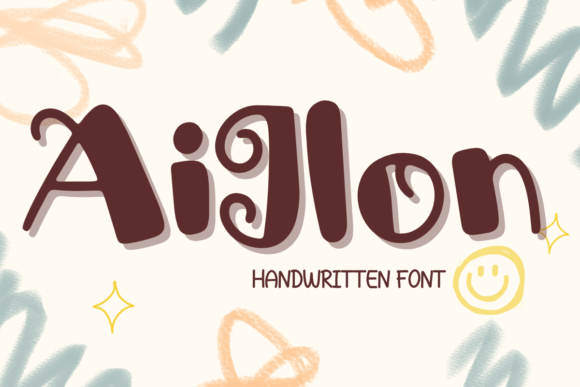
Introducing Aiglon Font, the Enchanting Handwritten Display Font!
Embark on a captivating journey into the realm of typography with Aiglon Font, the ultimate display font that breathes life into your creative endeavors. This captivating font is a masterpiece crafted by the talented Sirinart, designed to ignite your imagination and elevate your designs to new heights. Let Aiglon's charming handwritten style add a touch of whimsy and elegance to your projects, effortlessly capturing the hearts of your audience.
Unleash your creativity and explore the boundless possibilities of Aiglon Font. With its versatile nature, this font effortlessly adapts to a myriad of design projects, from the intimate charm of personal diaries to the vibrant energy of social media posts. Its graceful strokes and playful curves lend a unique character to your content, whether you're crafting eye-catching banners, designing stylish mugs, or creating heartfelt greeting cards.
Step into a world where words dance with delight as you embrace the allure of Aiglon Font. Let its enchanting handwritten style transport you to a realm of boundless creativity, where every letter tells a story and every word carries a touch of magic. Discover the joy of expressing yourself with a font that resonates with your inner artist, allowing your ideas to flourish and your designs to captivate.
With Aiglon Font, the possibilities are endless. Embrace the boundless creativity within you and explore new horizons of design. Let your imagination soar as you transform ordinary text into extraordinary expressions of art, leaving an unforgettable impression on your audience. Unleash the power of Aiglon Font today and witness the transformation of your creative vision into a captivating masterpiece.